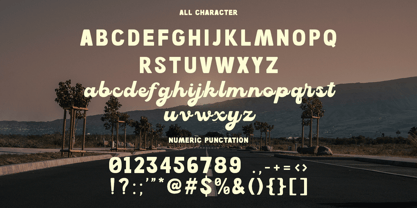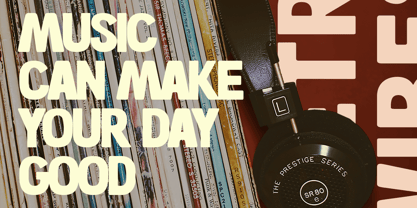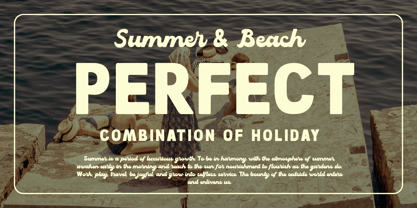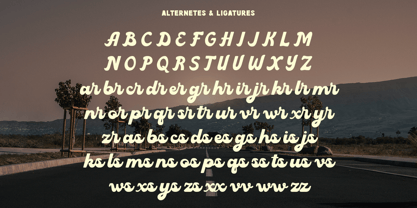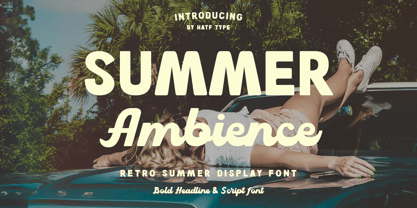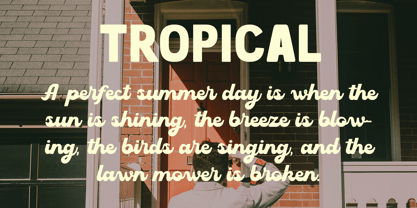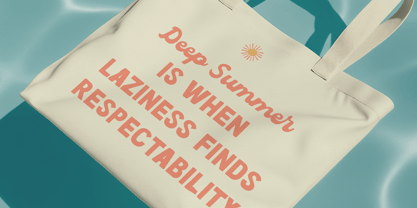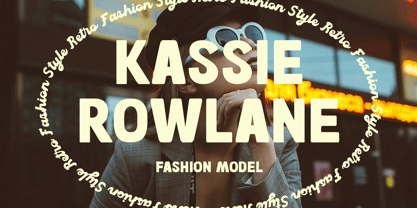
Summer Ambience
by Hatftype
The Summer Ambience Font Family was designed by Asep Rendi and published by Hatftype. Summer Ambience contains 1 styles. More about this family
Feel the warmth of the sun and the gentle sea breeze in every letter of Summer Ambience, a retro summer-themed font that brings a retro feel to your designs. With its playful and bold style, this font is designed to exude a carefree, relaxed, and nostalgic summer atmosphere.
Summer Ambience is perfect for a variety of design needs, from vacation posters and beach party invitations to summer product labels and stylish social media content. Its smooth curves and distinctive retro character make this font stand out, easy to read, and yet pleasing to the eye.
Enhance every design project with Summer Ambience, a font ready to transport you to an unforgettable summer adventure.
Designers: Asep Rendi
Foundry: Hatftype